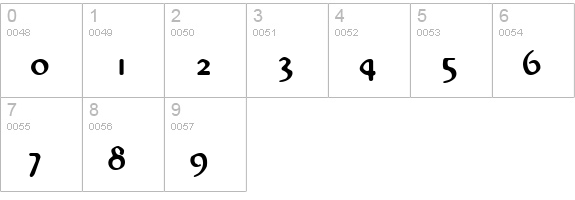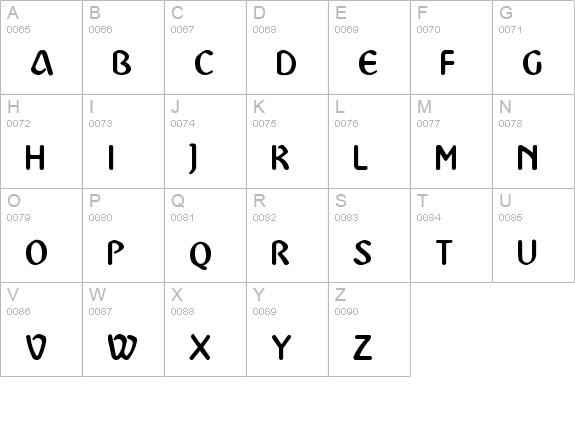
QTAbbie Regular Font Details
QTAbbie Regular is the standard, neutral variant in the QTAbbie typeface family \xE2\x80\x94 well suited to general body text, paragraphs, and standard typographic work.
QTAbbie Regular is a stunning font that effortlessly combines elegance with modernity. Its clean and sleek lines make it perfect for a wide range of design projects, from branding and packaging to invitations and posters. The versatility of this font allows it to work beautifully in both large headlines and smaller body text. With its balanced proportions and carefully crafted letterforms, QTAbbie Regular exudes a timeless charm that will captivate any audience. Its smooth curves and precise details create a sense of sophistication, while its legibility ensures clear communication. One of the greatest advantages of QTAbbie Regular is that it is available for free download at FontsMarket.com. This means that you can easily access and use this font in your designs without any cost. Whether you are a professional designer or a hobbyist, having a high-quality font like QTAbbie Regular in your collection can elevate your projects to a whole new level. So don't miss out on the opportunity to enhance your design work with QTAbbie Regular. Download it for free at FontsMarket.com and let its beauty and versatility bring your projects to life.